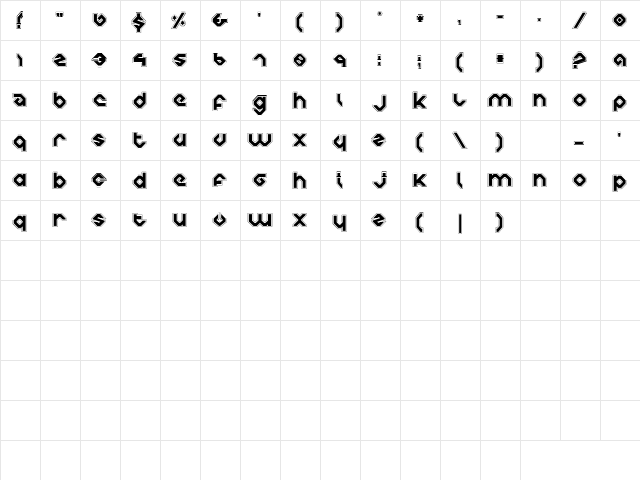
Charlie's Angles Collegiate Collegiate
| Style | Collegiate |
Design Context for Charlie's Angles Collegiate Typeface
Charlie's Angles Collegiate is a composed and adaptable typeface that performs quietly and consistently across a wide range of design contexts.